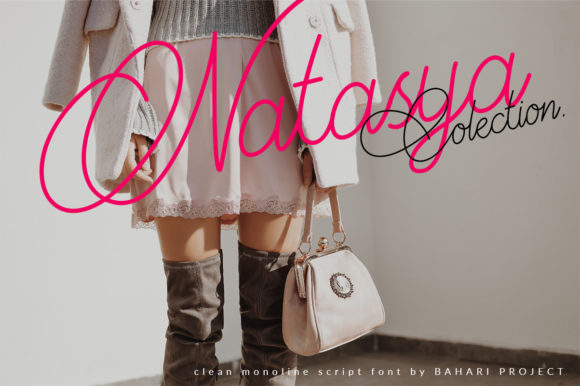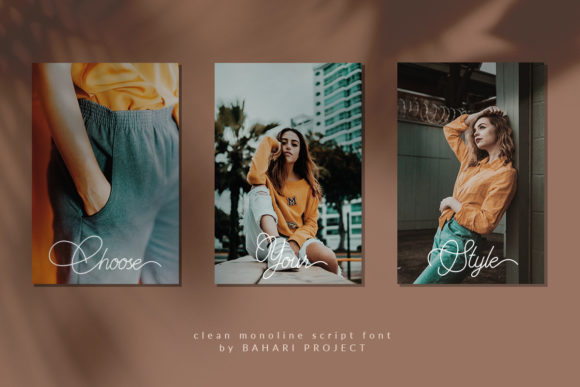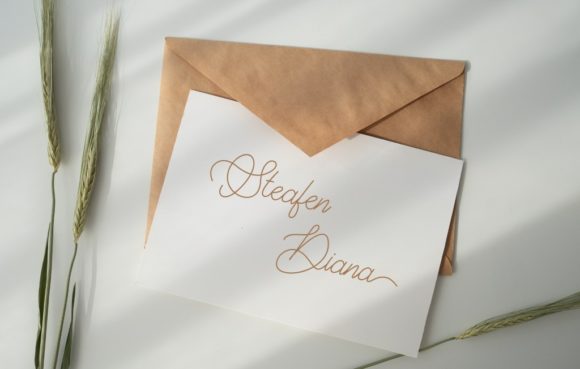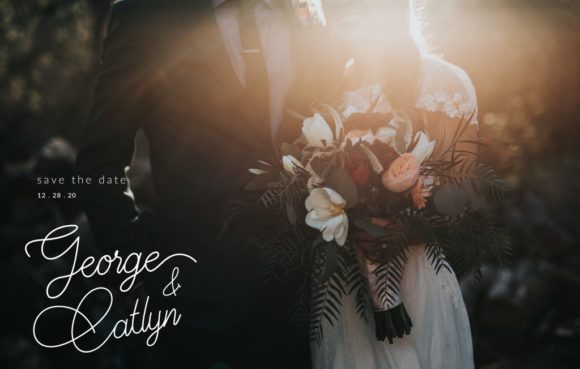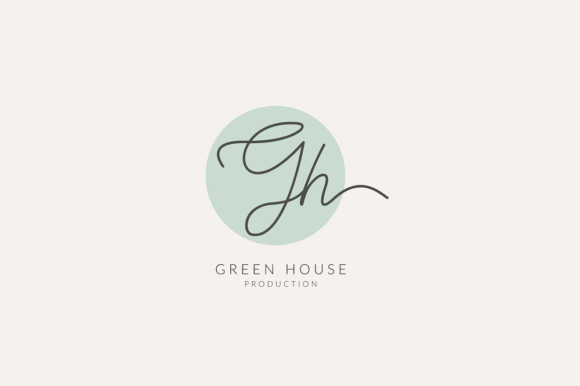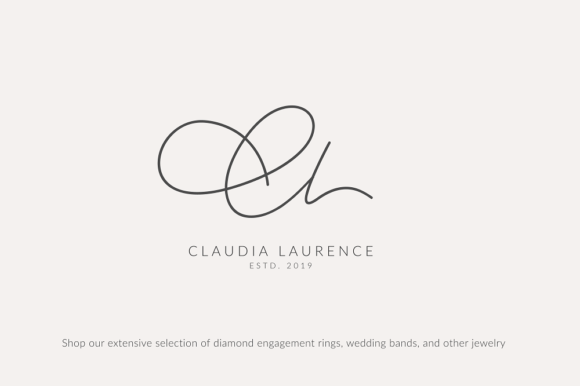
Introduction to Monoright Font
This is Monoright, a clean and delicate script font.
This font is suitable for branding, lettering, wedding invitation, title, logos, and more Monoright can bring a simple minimalist atmosphere, very clean and eye-catching.
Key Features of Monoright Font